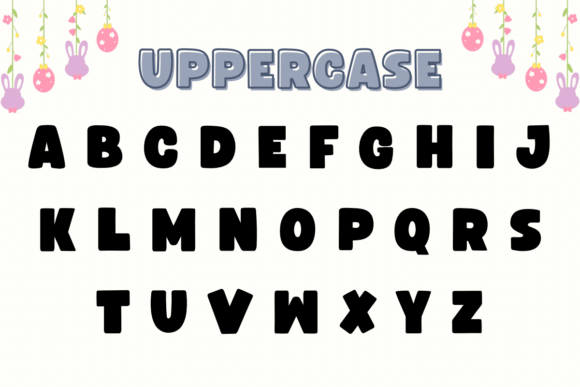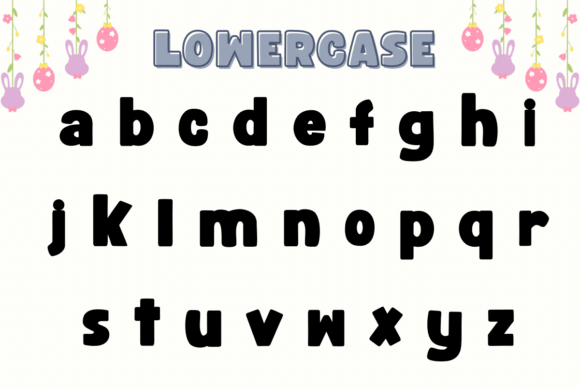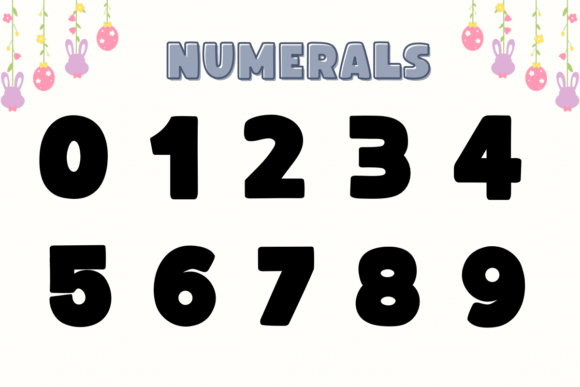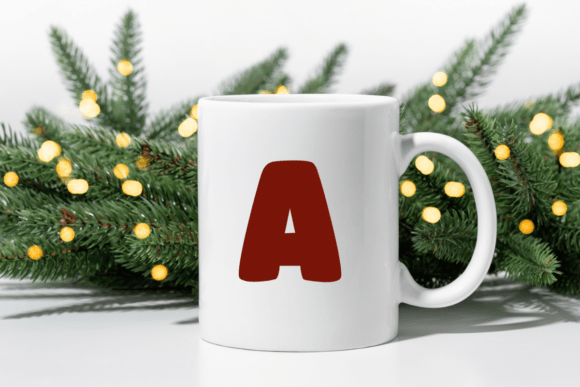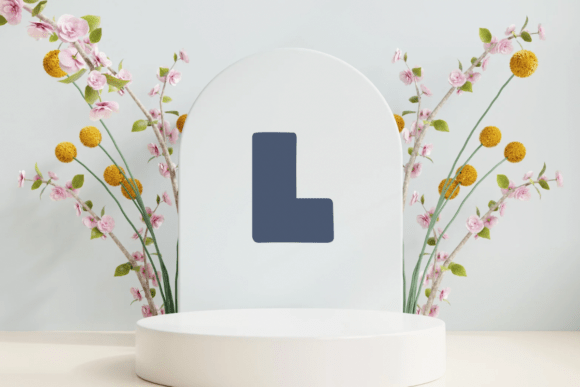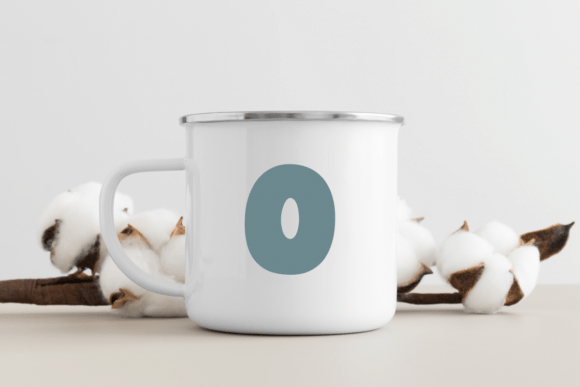
Easter Sunday Font: The Perfect Addition to Your Springtime Designs
Are you looking for a font that captures the essence of springtime joy and festivity? Look no further than the Easter Sunday Font! This cheerful and chunky handwritten font is specifically designed to bring a touch of warmth and color to your designs, making it perfect for Easter crafts, kids’ cards, party invitations, classroom decorations, and seasonal product packaging.
What Makes Easter Sunday Font So Special?
Easter Sunday Font is a one-of-a-kind typeface that boasts soft edges, bold lettering, and a playful layout. Its unique combination of characteristics makes it an excellent choice for designers and crafters who want to add a personal touch to their work. The font’s friendly and festive vibe is sure to delight your audience and make your designs stand out from the crowd.
Perfect for Easter Crafts and Designs
Easter Sunday Font is an ideal choice for Easter-themed crafts and designs. Whether you’re creating handmade cards, party invitations, or decorations, this font will add a touch of springtime joy to your work. Its playful and cheerful nature makes it perfect for kids’ crafts, and its bold lettering ensures that your message will be loud and clear.
Use Easter Sunday Font for:
- Easter crafts and decorations
- Kids’ cards and party invitations
- Classroom decorations and activities
- Seasonal product packaging
- Any design that needs a warm, colorful touch
Why Designers and Crafters Love Easter Sunday Font
Designers and crafters love Easter Sunday Font for its versatility and ease of use. The font is simple to read and works well in a variety of design applications. Its friendly and approachable nature makes it perfect for designs that need a personal touch. Whether you’re creating digital or print designs, Easter Sunday Font is sure to become a favorite in your collection.
Tips for Using Easter Sunday Font
Here are some tips for getting the most out of Easter Sunday Font:
- Use it for headings and titles to add a pop of color and personality to your designs
- Pair it with other fonts to create a unique and eye-catching combination
- Use it for kids’ crafts and activities to add a playful touch
Easter Sunday Font is a delightful addition to any designer’s or crafter’s collection. Its cheerful and chunky handwritten style makes it perfect for Easter crafts, kids’ cards, party invitations, classroom decorations, and seasonal product packaging. With its friendly and festive vibe, Easter Sunday Font is sure to bring a touch of springtime joy to your designs. So why not give it a try and see how it can elevate your work?
Whether you’re a designer, crafter, or simply someone who loves Easter, Easter Sunday Font is a must-have. Its unique combination of soft edges, bold lettering, and playful layout makes it a versatile and fun font that’s sure to delight. So go ahead, get creative, and make your designs shine with Easter Sunday Font!